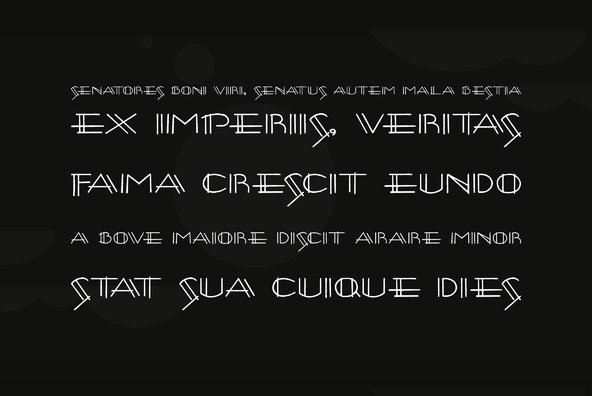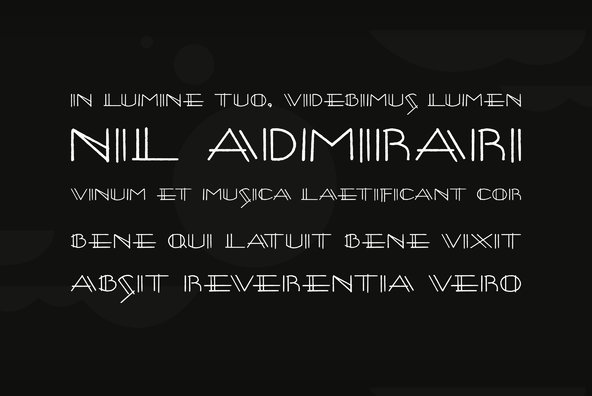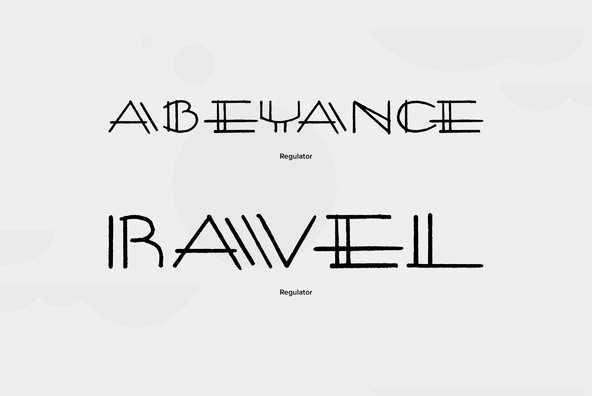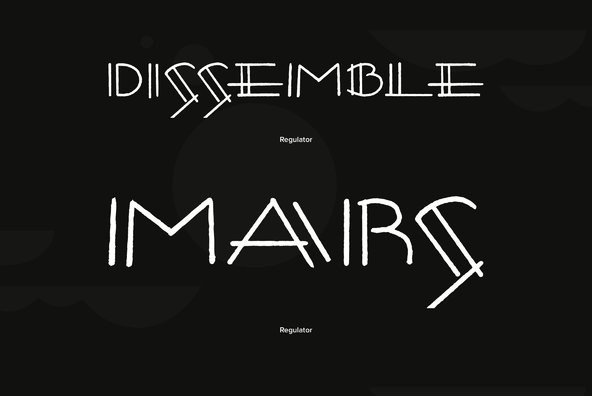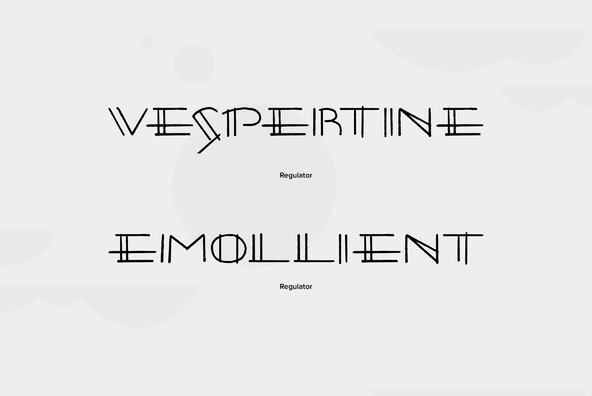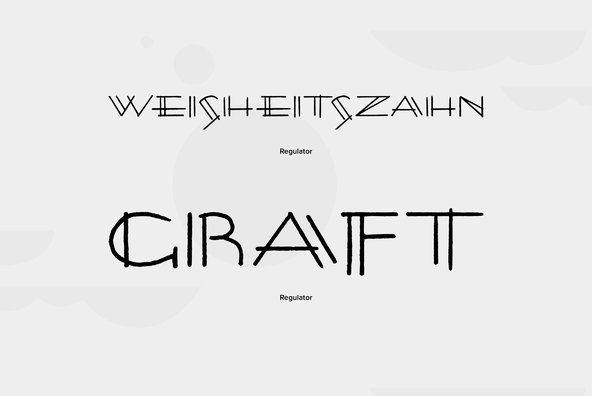
Regulator
Foundry: Font Diner
Ever wonder what architectural lettering looked like on plans from the 1930s? Well grab your dividers and T-square and dive in to this Art Deco style handwritten wonder!